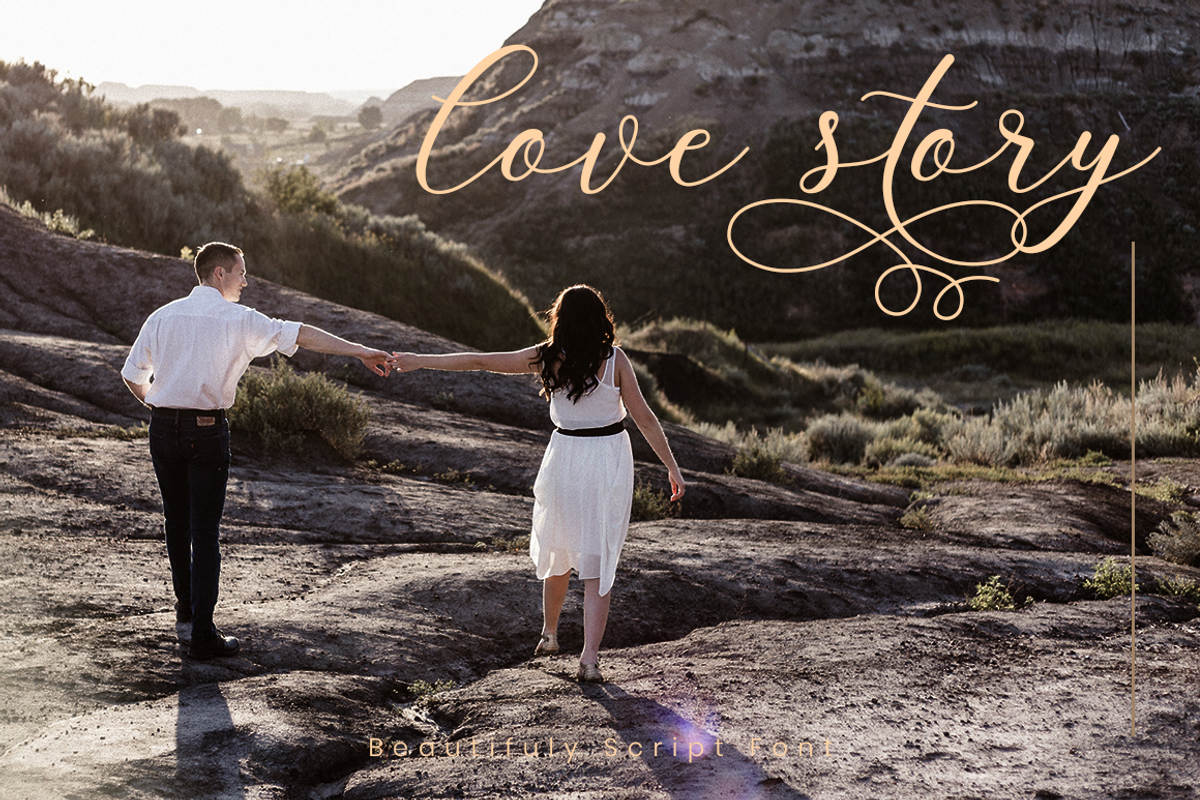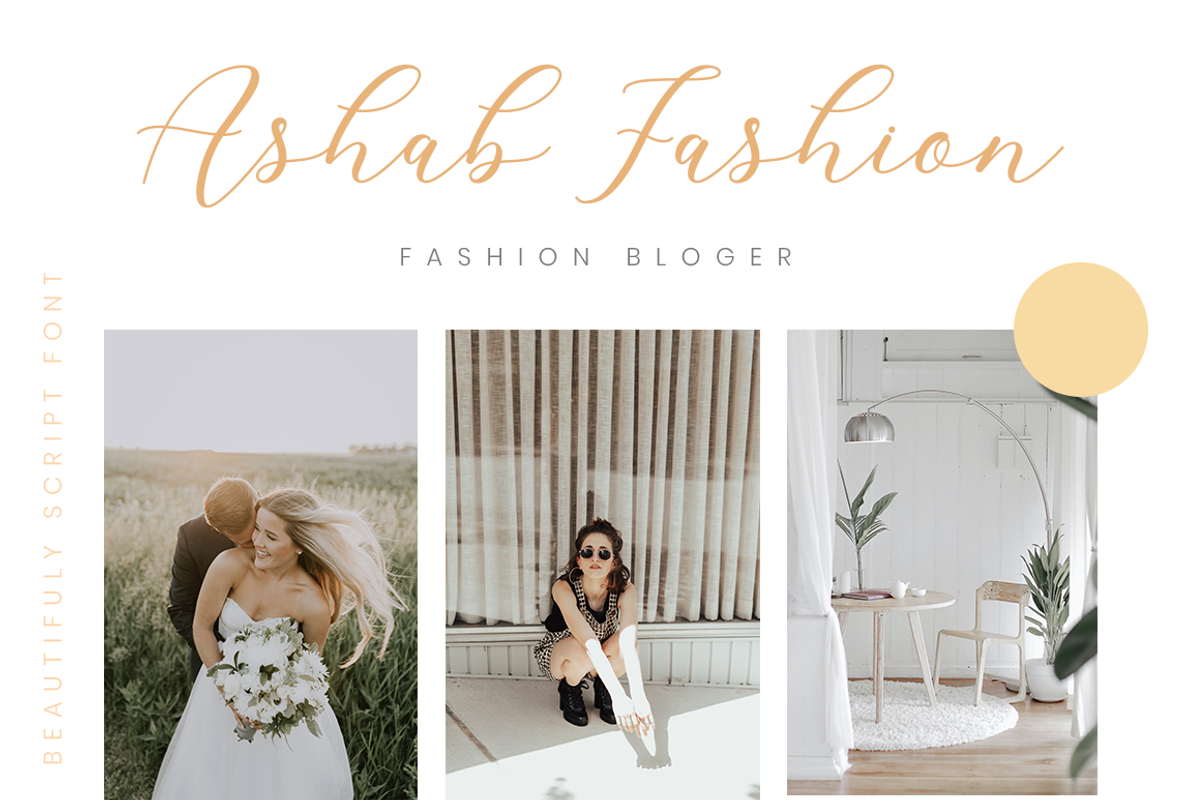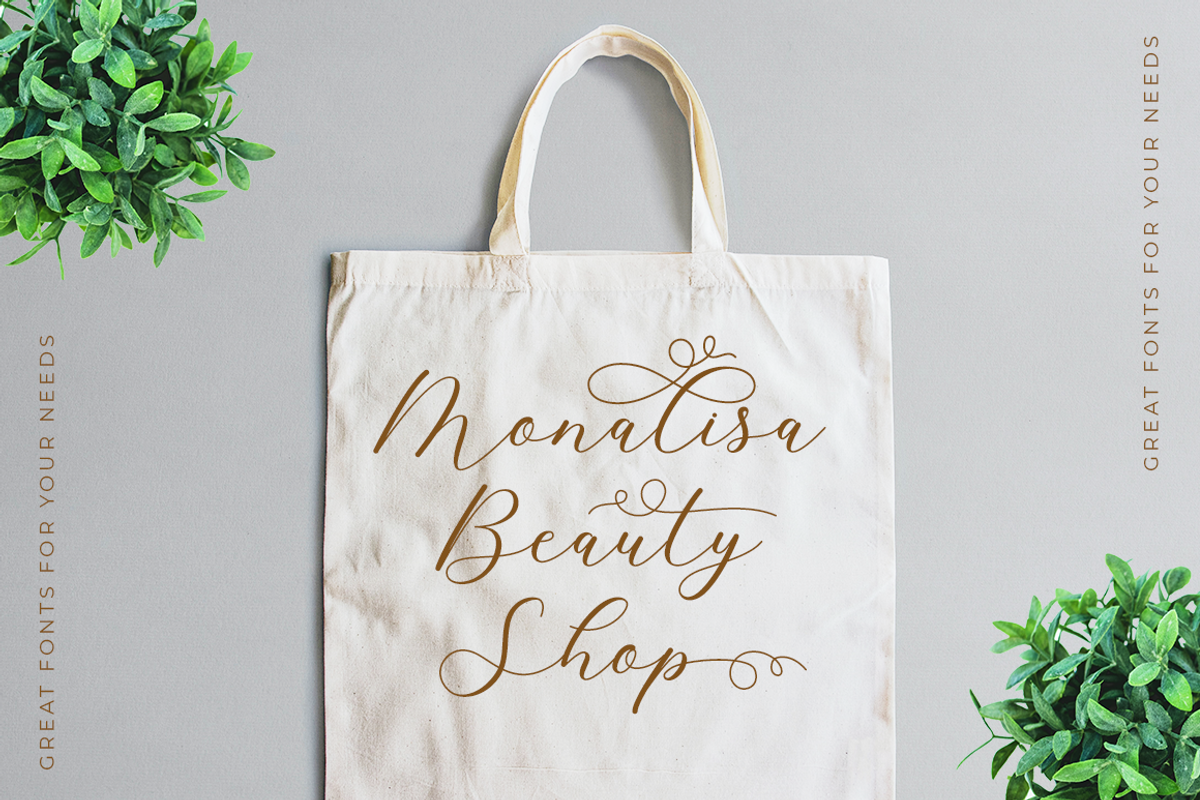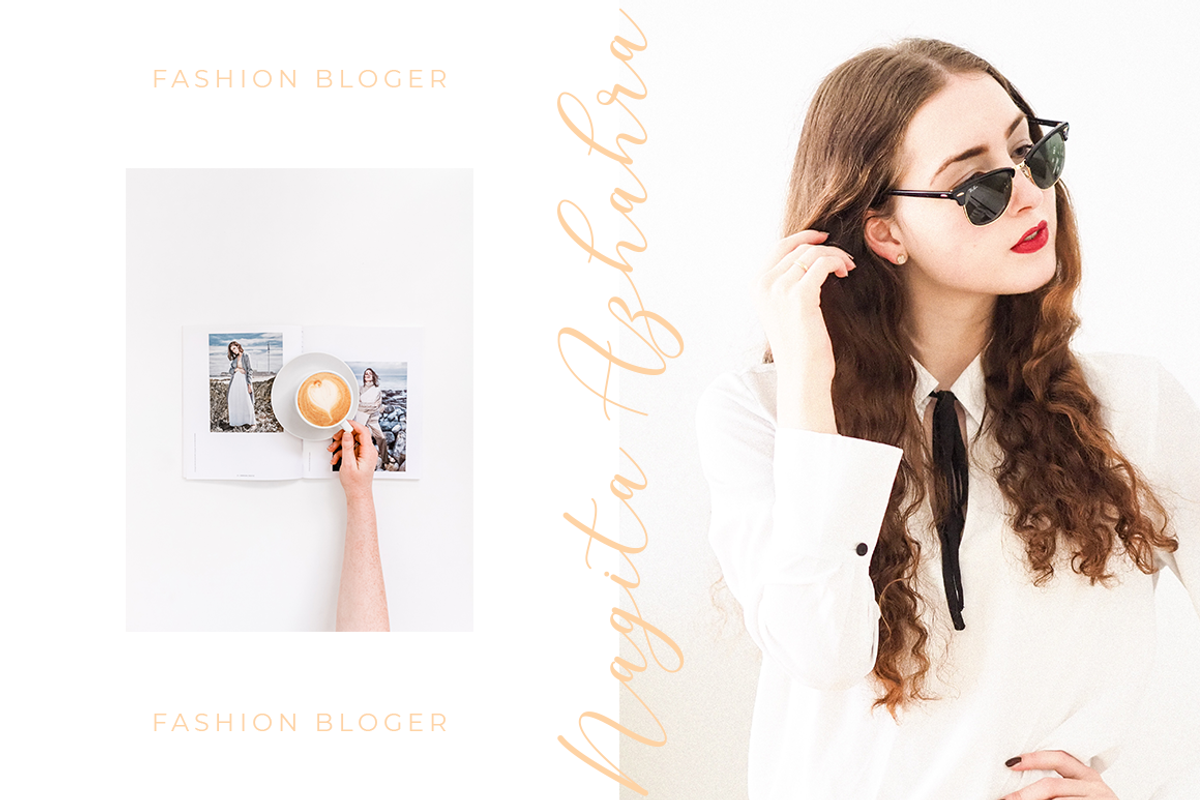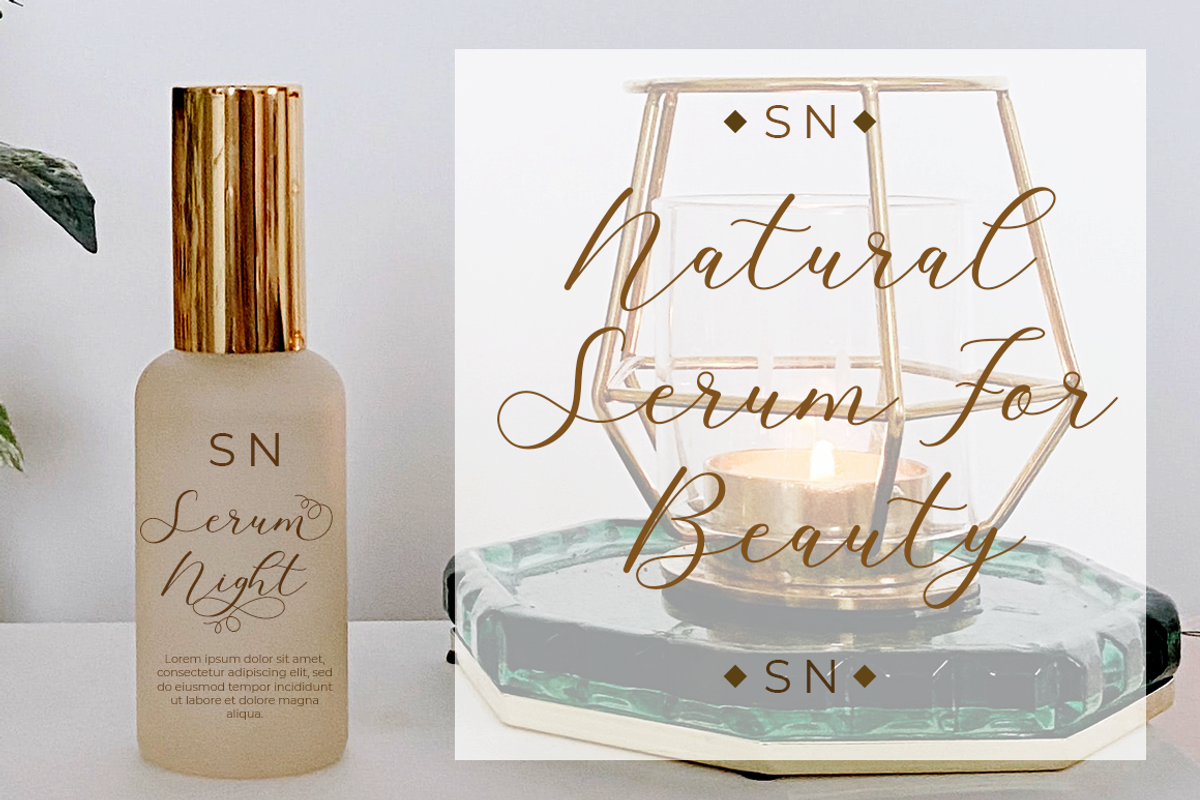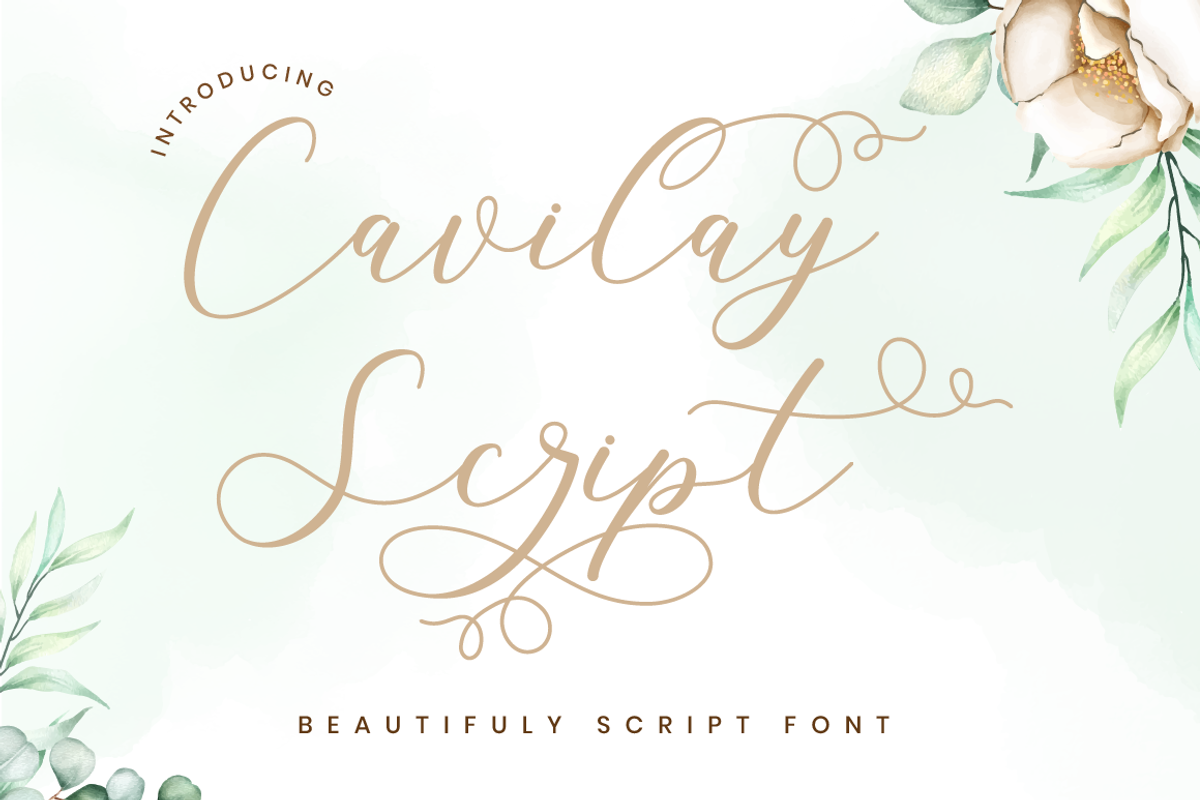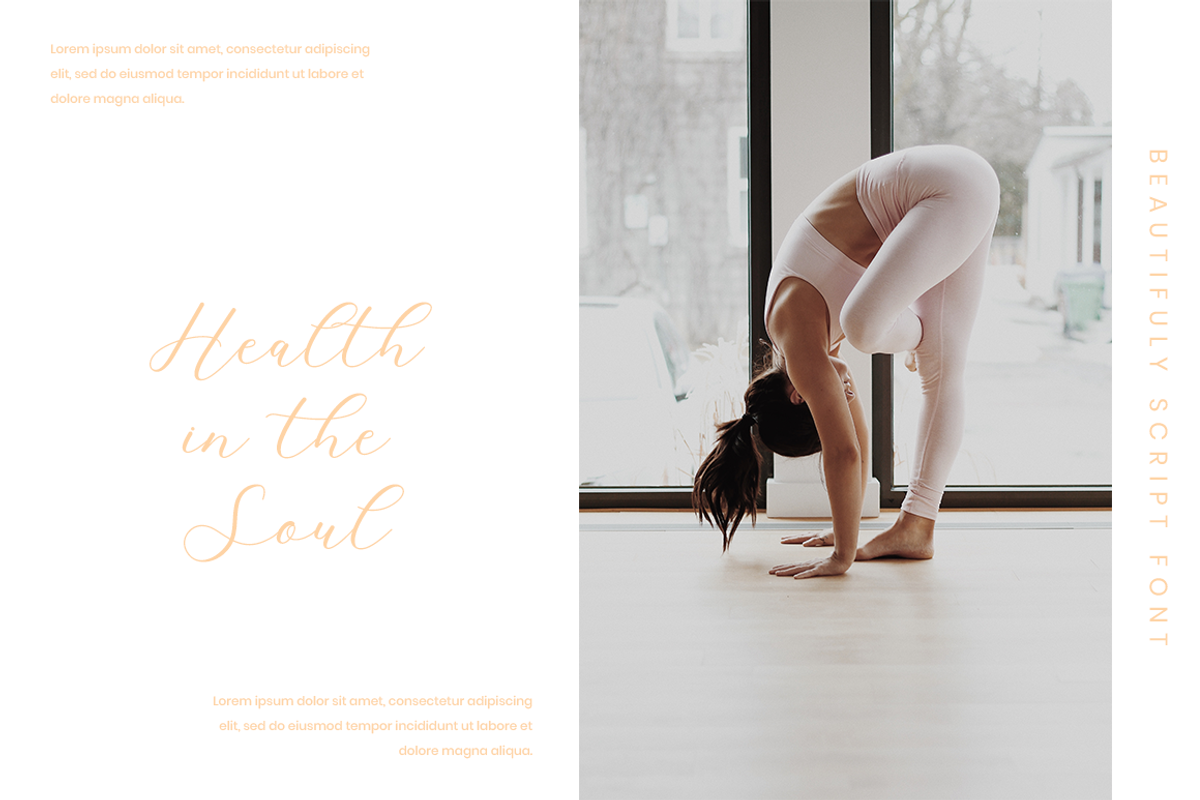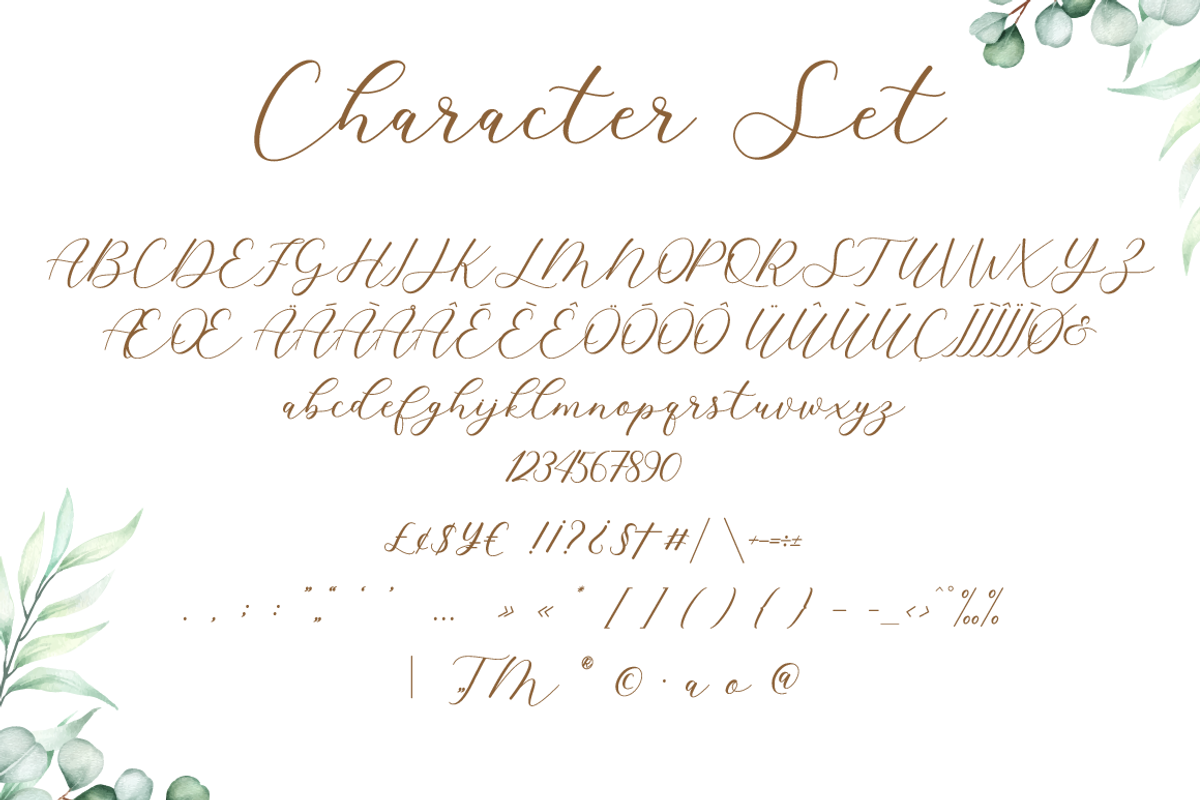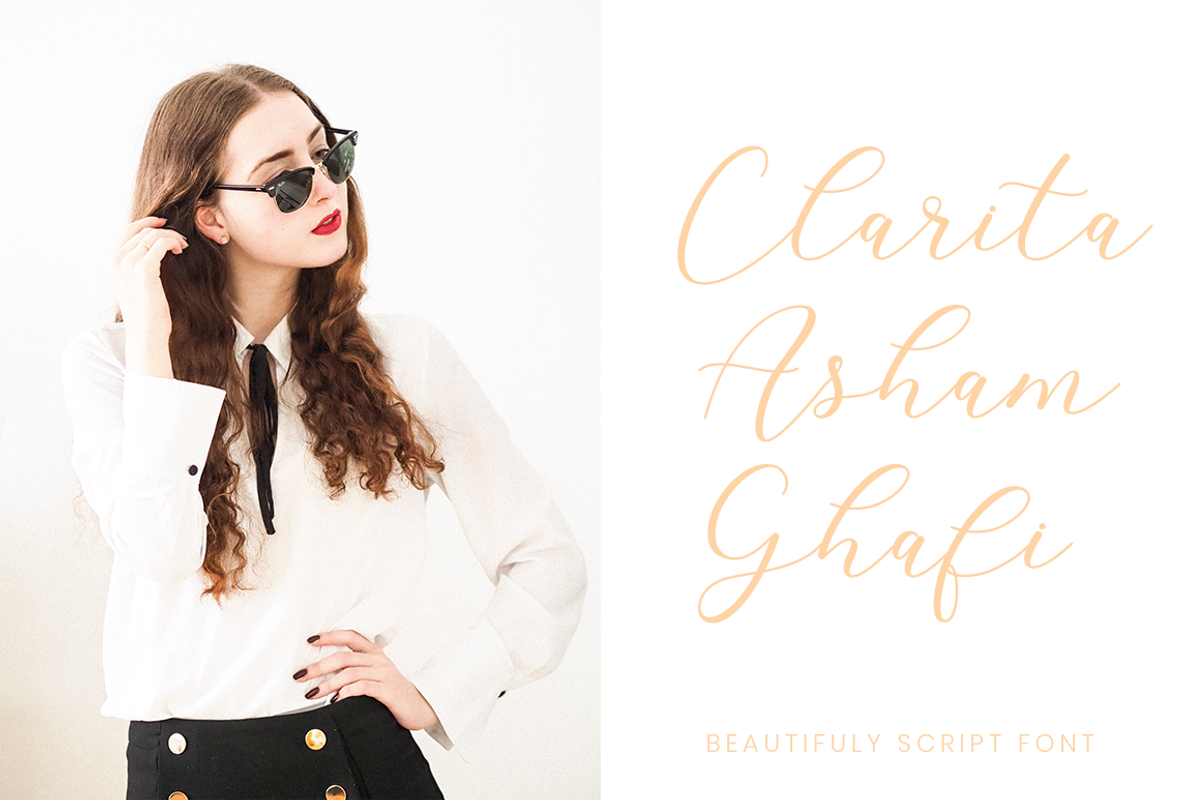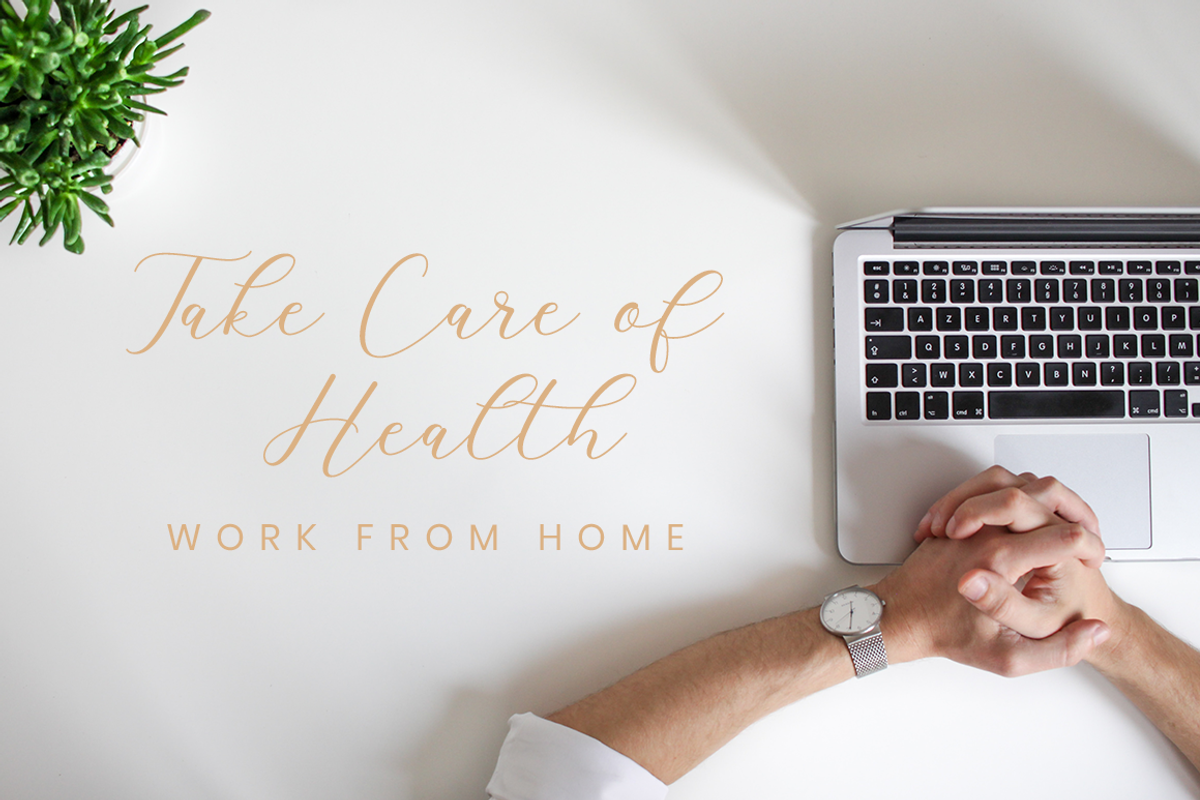
Cavilay Script - Wedding Font
Introducing Cavilay Script
Cavilay Script is a beautiful script and wedding font. This font is feminime, elegant, messy and modern. Cavilay Script perfect for wedding event, anniversary, birthday,greeting cards, logotype, branding, wedding invite and card, elegant logo, poster, packaging, stationery, website, and any other projects requiring a handwritten and luxurious touch. Come with open type feature with a lot of alternates, its help you to make great lettering. This font is also support multi language.
Comes with feature :
- Alternate & Ligature
- Number, Punctuation And Symbols
- Multilanguage Support.